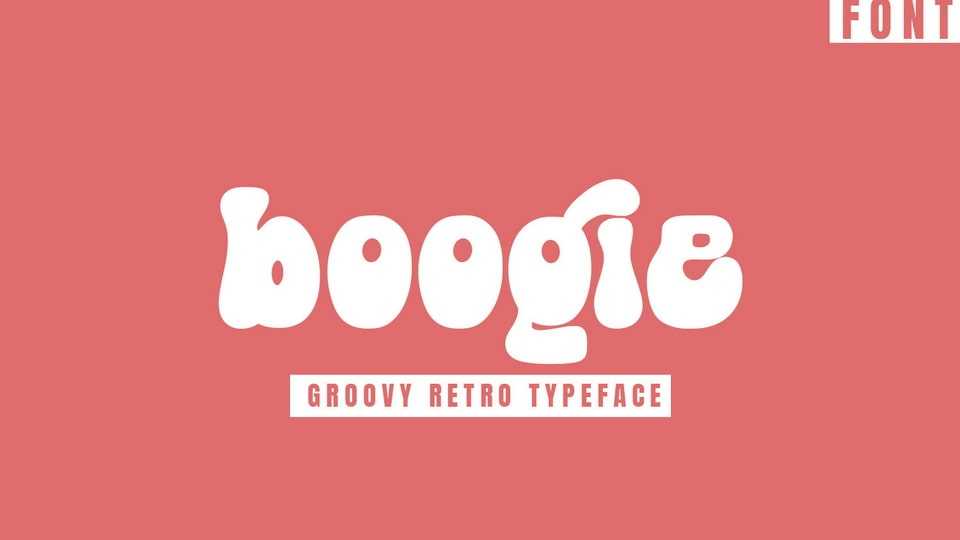
Download Boogie font, a groovy display typeface that emerged in the 1960s and 1970s during the psychedelic era. Boogie font features bold, curvy lettering with an exaggerated cursive style, incorporating elements such as swirls, loops, and curves.
Designer: Arendx Studio